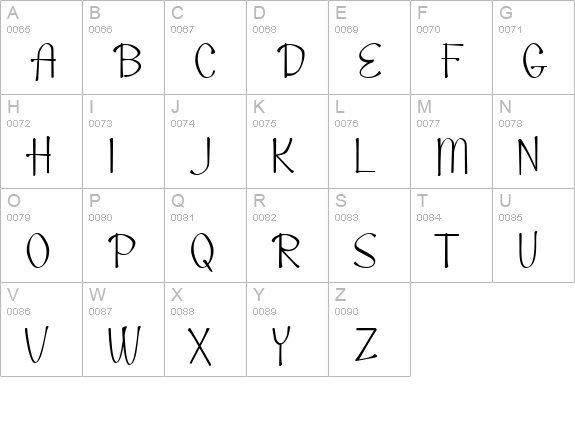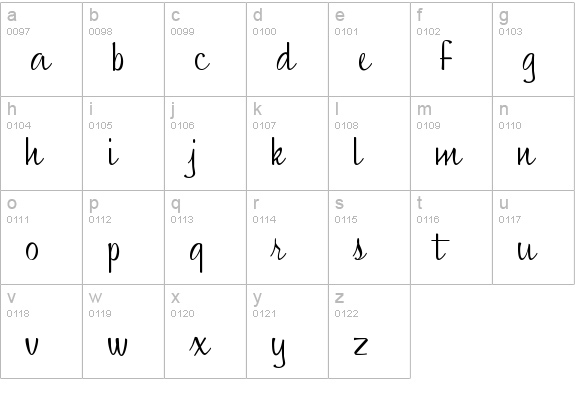
ScriptoramaHostessJF Font Details
ScriptoramaHostessJF is a breathtakingly beautiful font that exudes elegance and sophistication. With its delicate script style and graceful curves, this font brings a touch of femininity and charm to any design project. Its flowing letterforms create a sense of movement and fluidity, making it perfect for invitations, wedding stationery, and other romantic designs. But what sets ScriptoramaHostessJF apart is not just its aesthetic appeal; it is also the fact that it is available for free. Yes, you read that right! This stunning font can be freely downloaded at FontsMarket.com, allowing designers and enthusiasts alike to add a touch of glamour to their creations without breaking the bank. Whether you are a professional designer looking to elevate your work or an aspiring artist wanting to experiment with typography, ScriptoramaHostessJF is the perfect choice. Its versatility allows it to shine in a variety of contexts, from branding materials to social media graphics. With its generous availability and timeless beauty, ScriptoramaHostessJF is a font that captures the essence of elegance and offers it to you free of charge. So go ahead, visit FontsMarket.com, and let this font be the crowning jewel of your next design project.